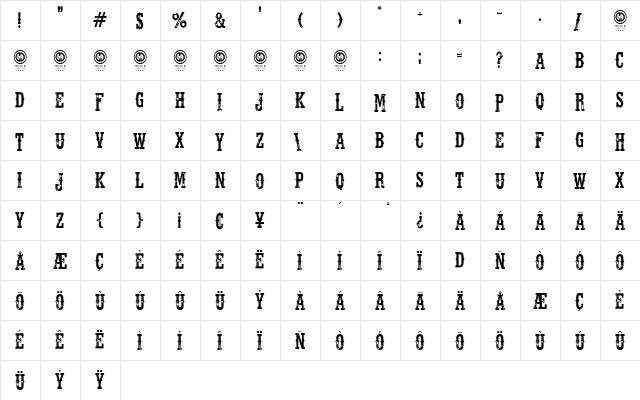
Fort Death Regular
| Foundry | Font Monger |
| Designer | Chris Vile |
Design Context for Fort Death Typeface
Fort Death leans into the macabre with letterforms designed to disturb and intrigue in equal measure.
Ideal for Halloween projects, horror film titles, haunted house signage, and dark editorial design.
Font Pairing: Pair with a clean neutral sans-serif for body copy to let Fort Death's character lead without overwhelming the composition.
Pro Tip: Fort Death works best as a headline or focal element. Pair it against plain, neutral body text to amplify the contrast.